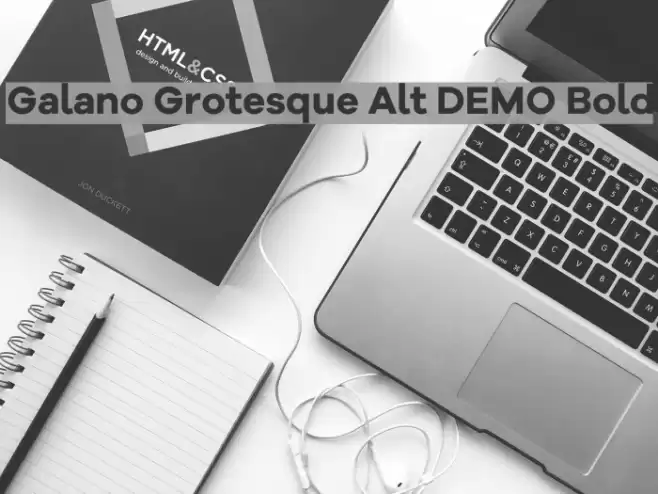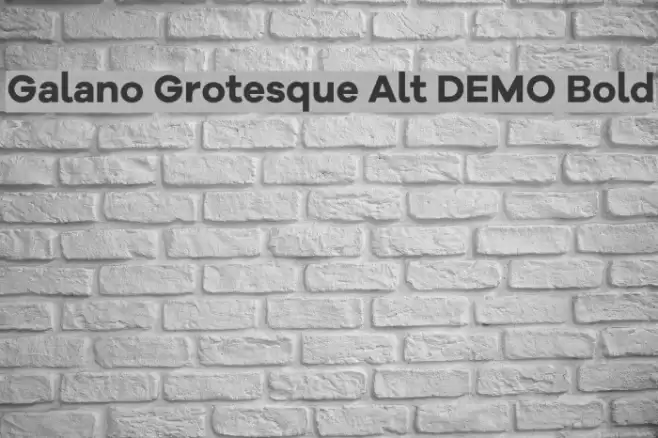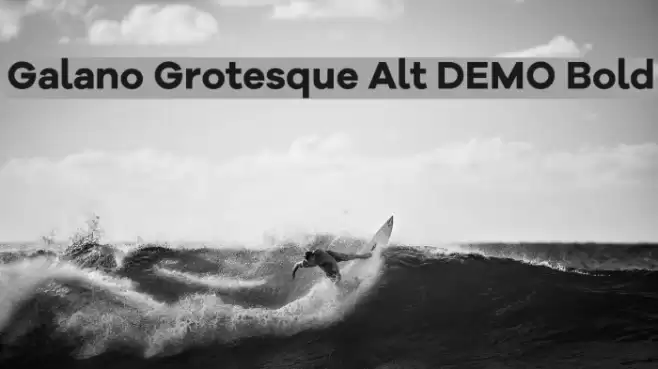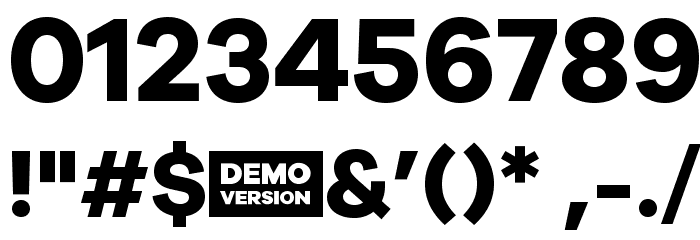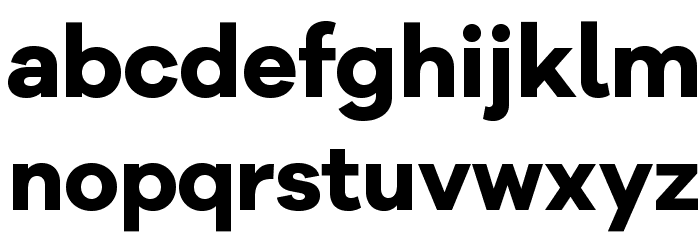
Galano Grotesque Alt DEMO Bold Font
Galano Grotesque Alt DEMO Bold Description
This font exhibits a clean and modern sans-serif style, characterized by its bold and uniform stroke weight. The uppercase letters are strong and geometric, while the lowercase letters maintain a consistent and harmonious appearance. The numbers are clear and easily readable, making them suitable for various applications. Special characters are well-defined, adding to the font's versatility. The overall design is straightforward and impactful, ideal for making a statement in any design project.
A bold, modern sans-serif font with a clean and geometric style from Uncategorized fonts.
- Proposed Projects: Ideal for branding, advertising, headlines, and digital media where a strong visual impact is desired.
- Use Case: Headlines, Logos, Branding